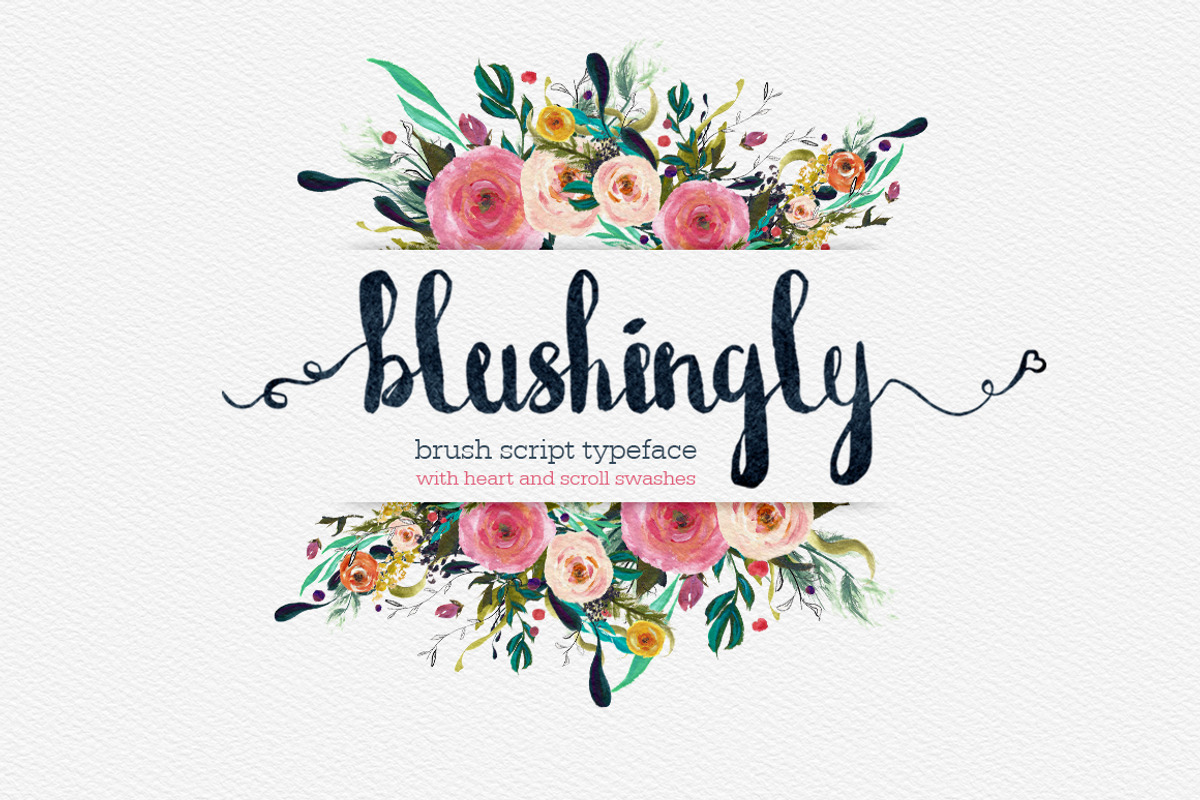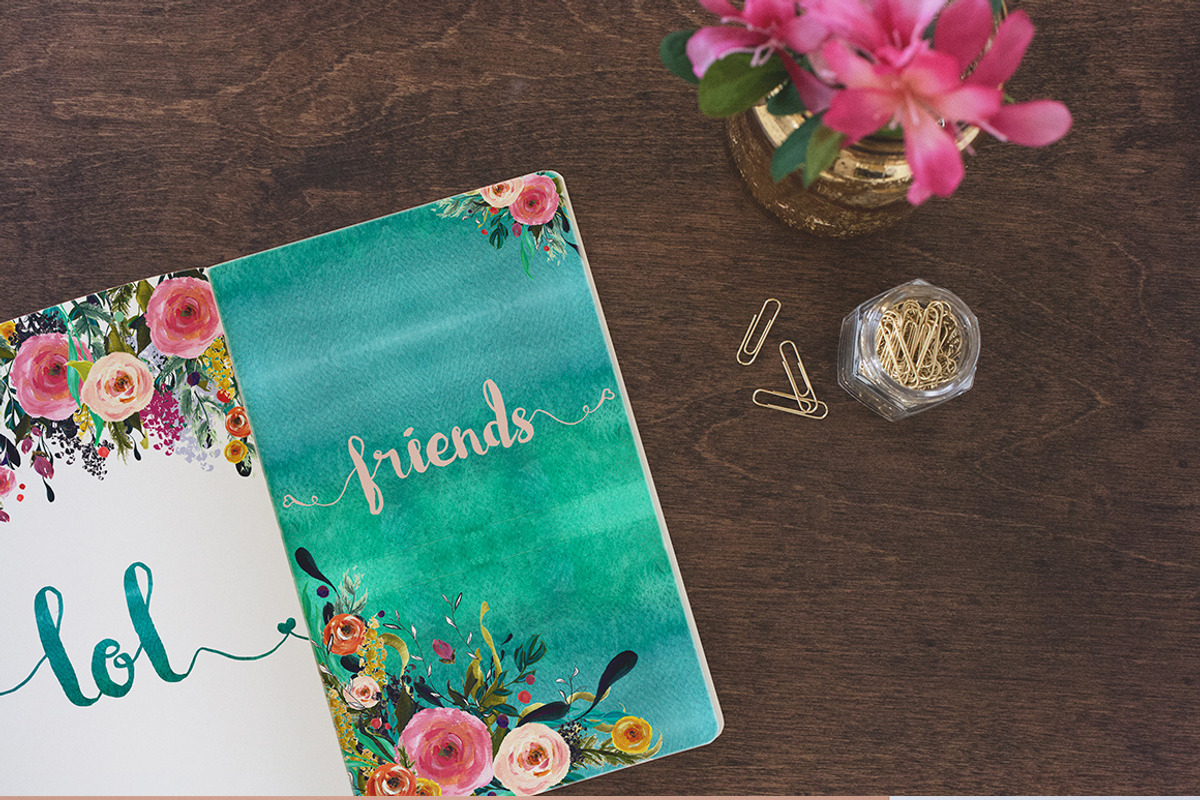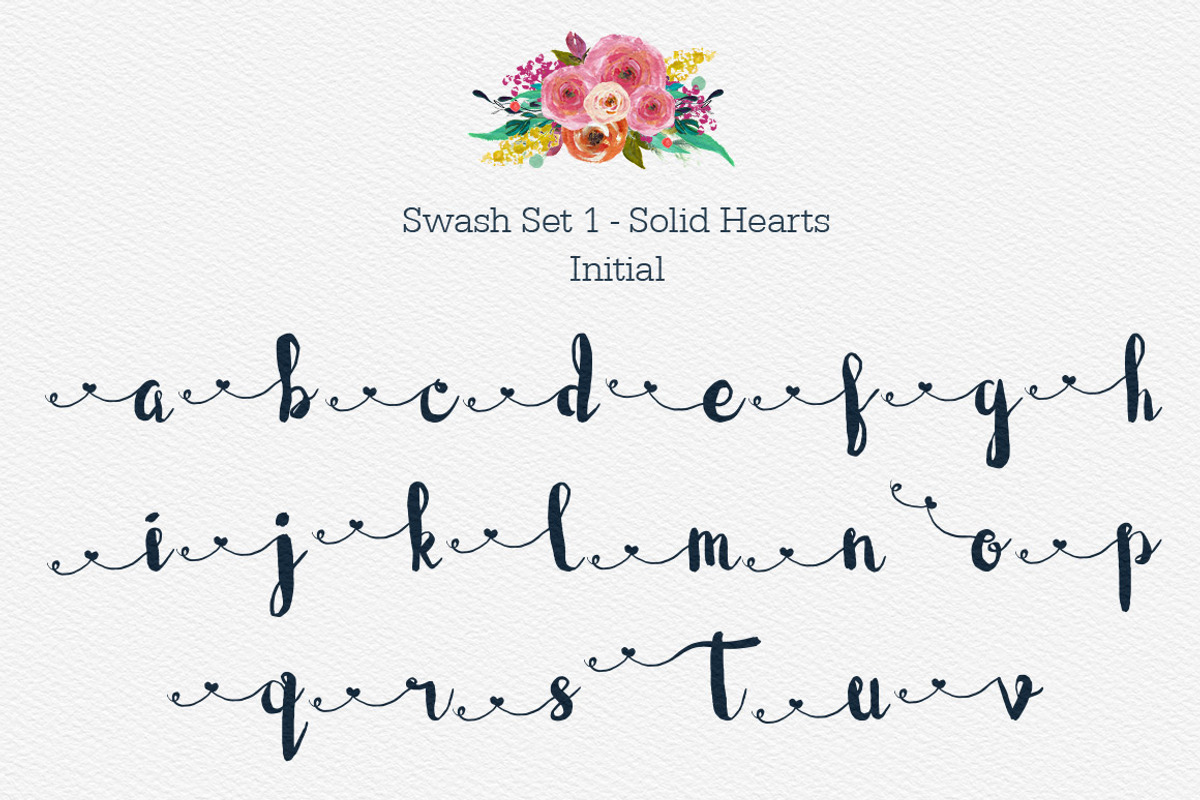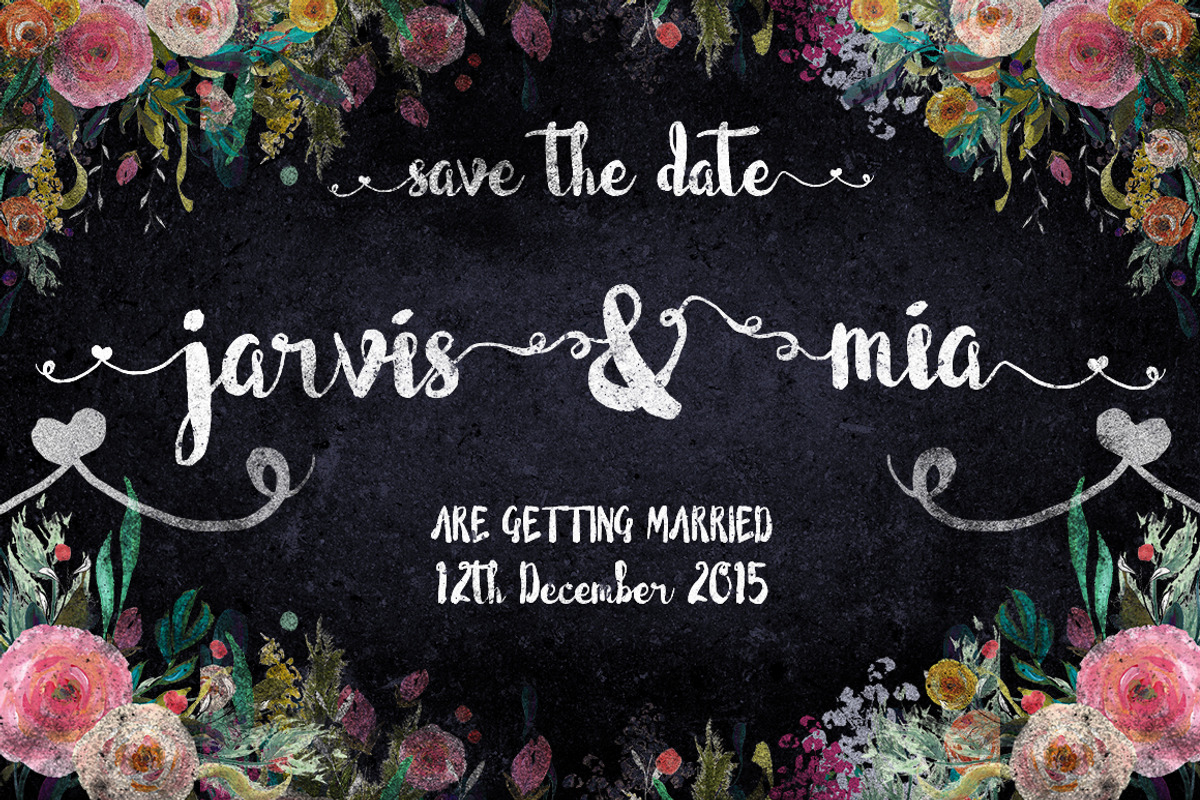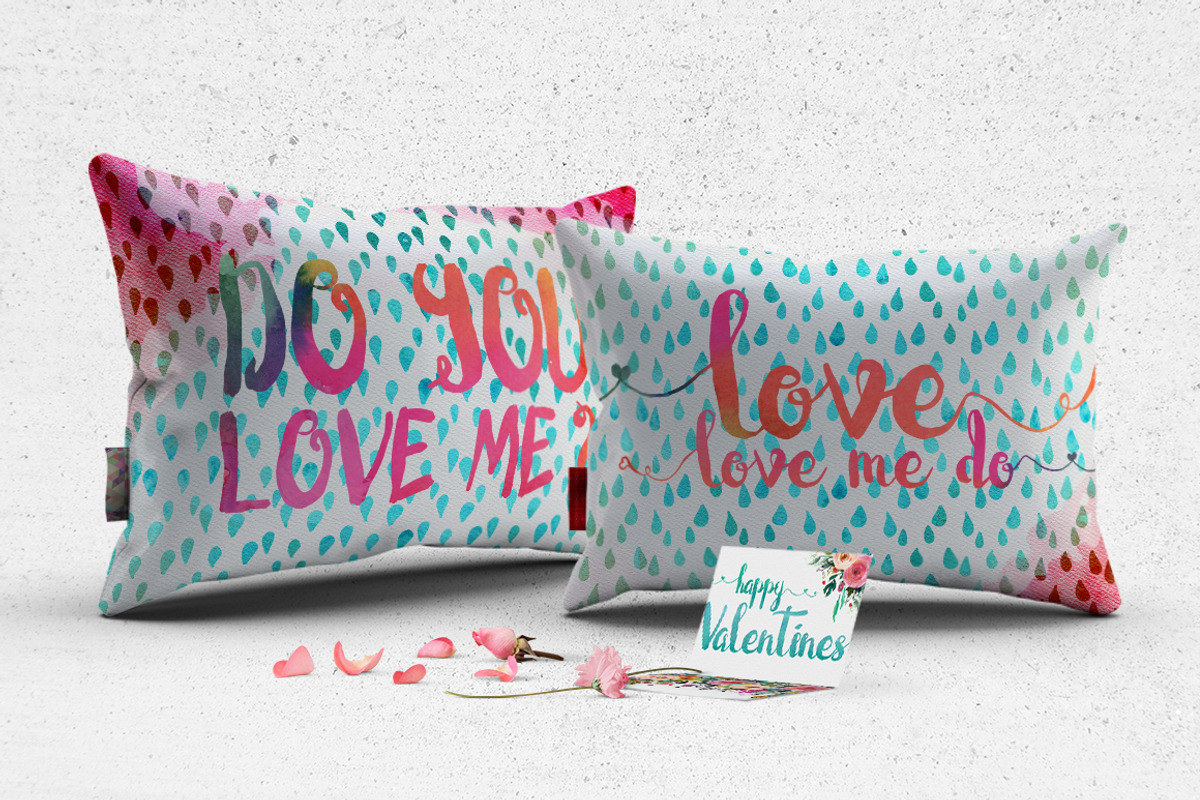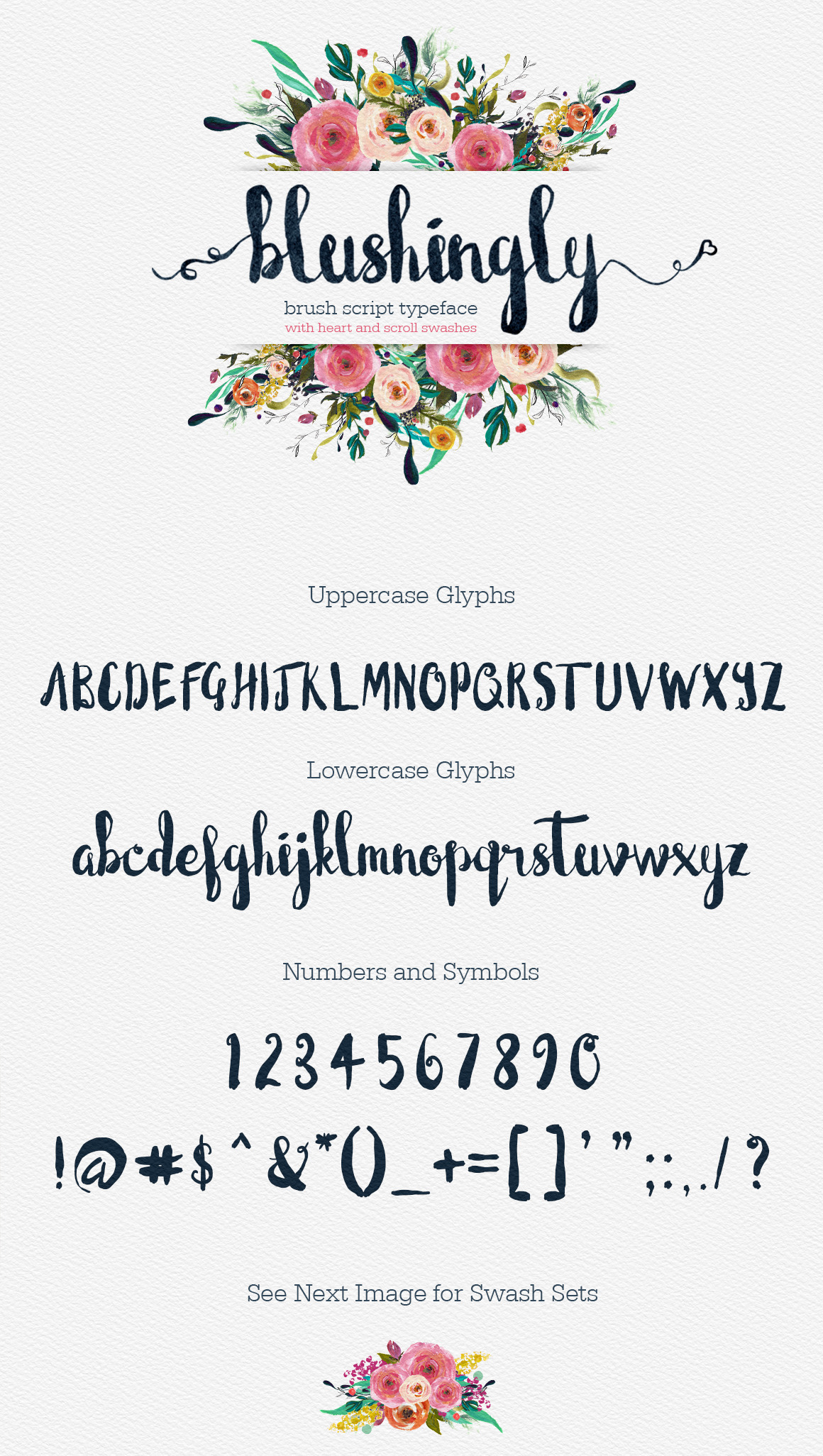
Blushingly Typeface
Introducing another brand new typeface from Creativeqube Design
Blushingly is a hand drawn brush font with 3 different sets of initial and terminal swashes. 2 heart styles and 1 swirly scroll style. Each set comes as a separate font file, and you access the swashes thru the character panel or the glyphs panel. (You must have a program that can access Opentype features)
Blushingly has a regular baseline, but has an imperfect, wobble edge for that natural, hand drawn look.
Uppercase, lowercase with left and right swashes, number and symbols are all included.